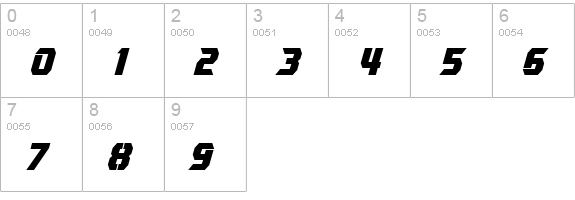
Combatron Bold Italic Font Details
Combatron Bold Italic is a strong, high-contrast, italic variant in the Combatron typeface family \xE2\x80\x94 well suited to headlines, attention-grabbing titles, and strong calls-to-action.
Combatron Bold Italic is a dynamic and powerful font that exudes a sense of strength and determination. Its bold and italicized design adds a touch of intensity and emphasis to any text, making it perfect for headlines, titles, and statements that demand attention. This font captures the essence of combat and warfare, with its sharp edges and bold strokes reminiscent of battle lines and the clash of swords. It brings an element of excitement and energy to your designs, making it ideal for projects related to action, adventure, and sports. With Combatron Bold Italic, your words take on a commanding presence, leaving a lasting impact on your audience. Whether you're creating posters for a high-octane event, designing a logo for a competitive sports team, or crafting a striking headline for a captivating article, this font will make your message stand out from the crowd. But what sets Combatron Bold Italic apart is not just its impressive design, but also its availability. It is offered as a free font, ready to be downloaded and used in your projects right away. Thanks to FontsMarket.com, you can easily access and utilize this font without any hassle. So why wait? Take advantage of Combatron Bold Italic's striking and commanding style, and let your creativity soar. Download this font for free at FontsMarket.com and make your designs truly unforgettable.